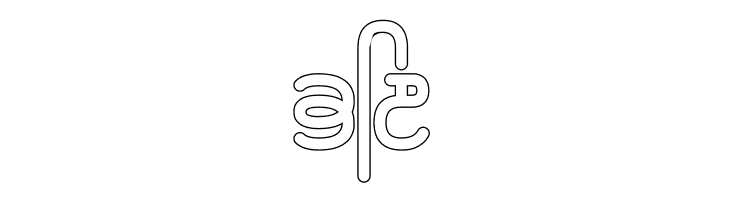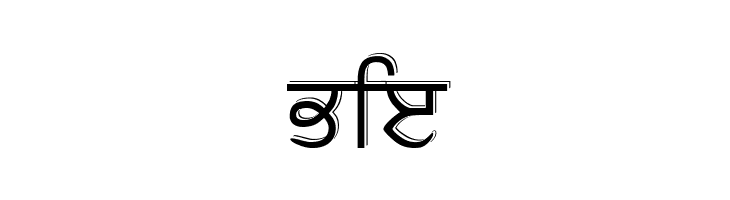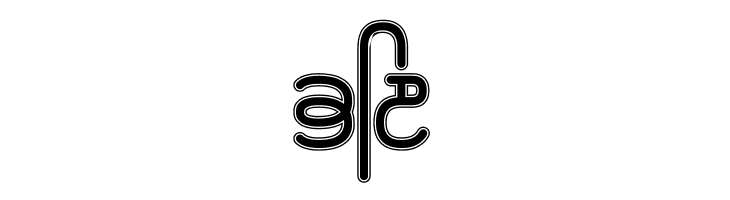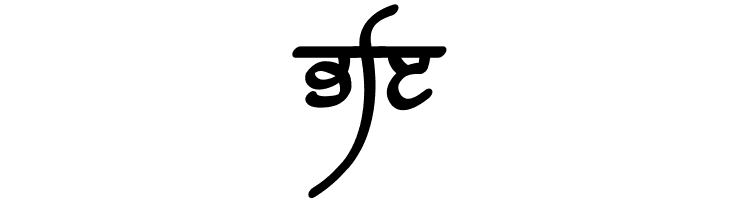
A modern, playful outline font with geometric shapes and rounded edges.
A bold, decorative font with a double-line effect and rounded, playful characters.
A bold, decorative font with abstract and flowing letterforms, ideal for artistic projects.
A bold and expressive font with thick strokes and dynamic curves.
A playful, bold font with thick, rounded characters and a hand-drawn feel.
A bold, geometric font with Art Deco influences and strong architectural elements.
A bold, geometric font with a modern and impactful design.